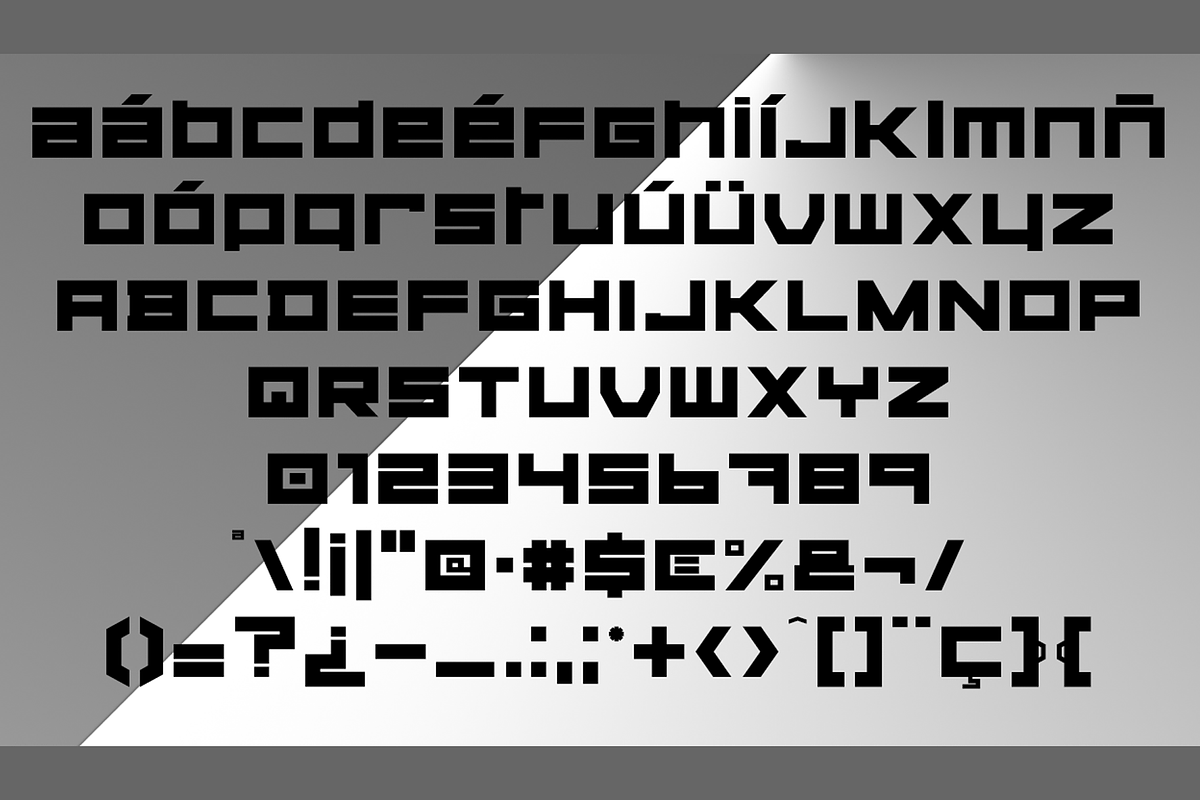
Basica v15
Basica v15 by Qbotype Fonts is a font selected for branding, posters, packaging, typography.
- Typo Basica v15 Contains 260 characters, including uppercase, lowercase, numbers and symbols.
Basica v15 by Qbotype Fonts fits naturally into Branding, posters, packaging, typography.